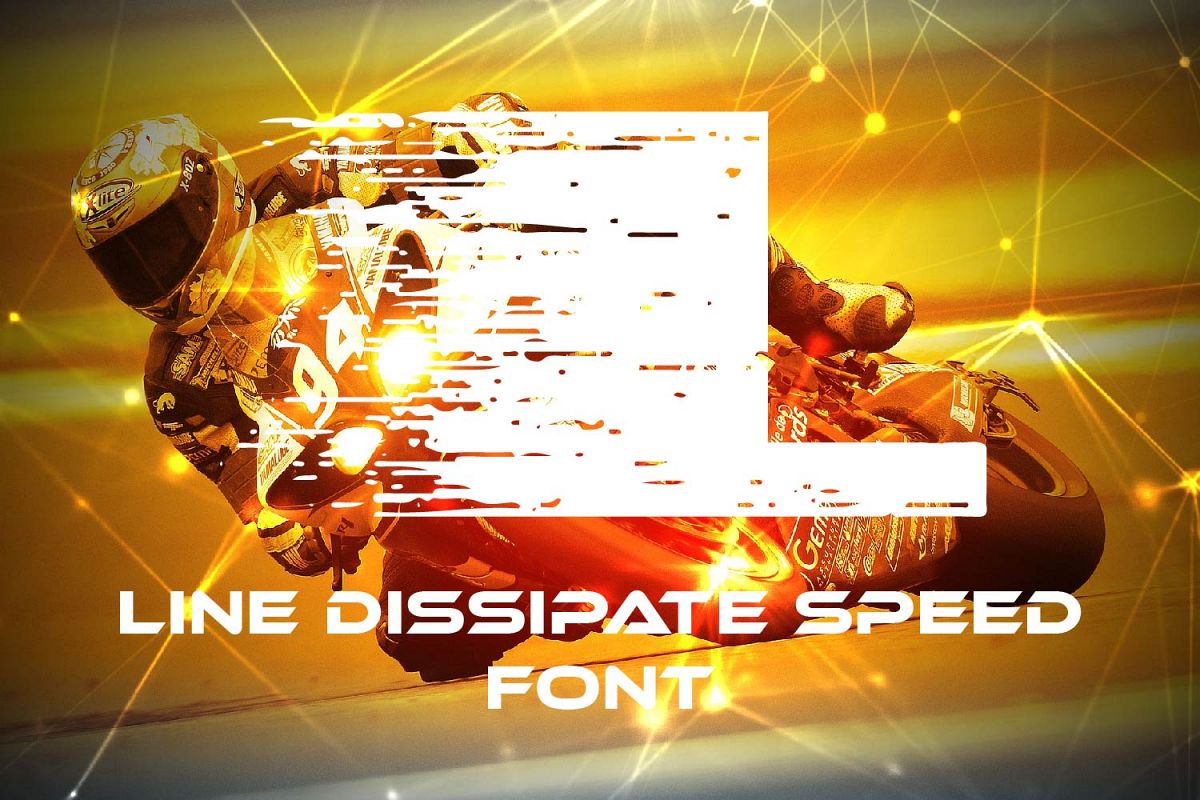
Line Dissipate Speed Font is a modern and beautiful typeface. This font is great for header text, logos, titles, poster, social media or anything which needs attractive text or design. Enjoy!